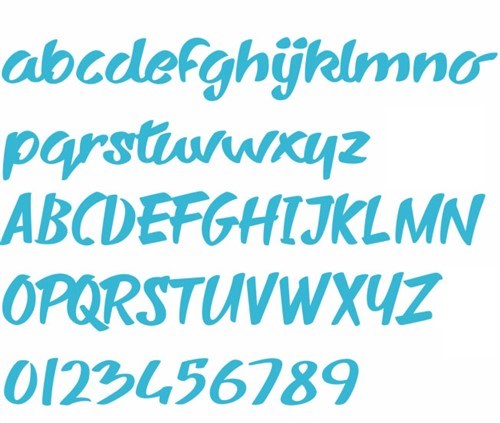
Unicorn Creatives is happy to present Bahia Mar Embrilliance Embroidery Font - Handwriting Style Alphabet - BX font machine embroidery font which has Flowing script machine embroidery font with smooth curves, ideal for home décor projects like personalized cushions. Available in BX font and Embrilliance format. included. If you would like to view more embroidery fonts and alphabets please search our embroidery fonts page.
Bahia Mar Embrilliance Embroidery Font - Handwriting Style Alphabet - BX font